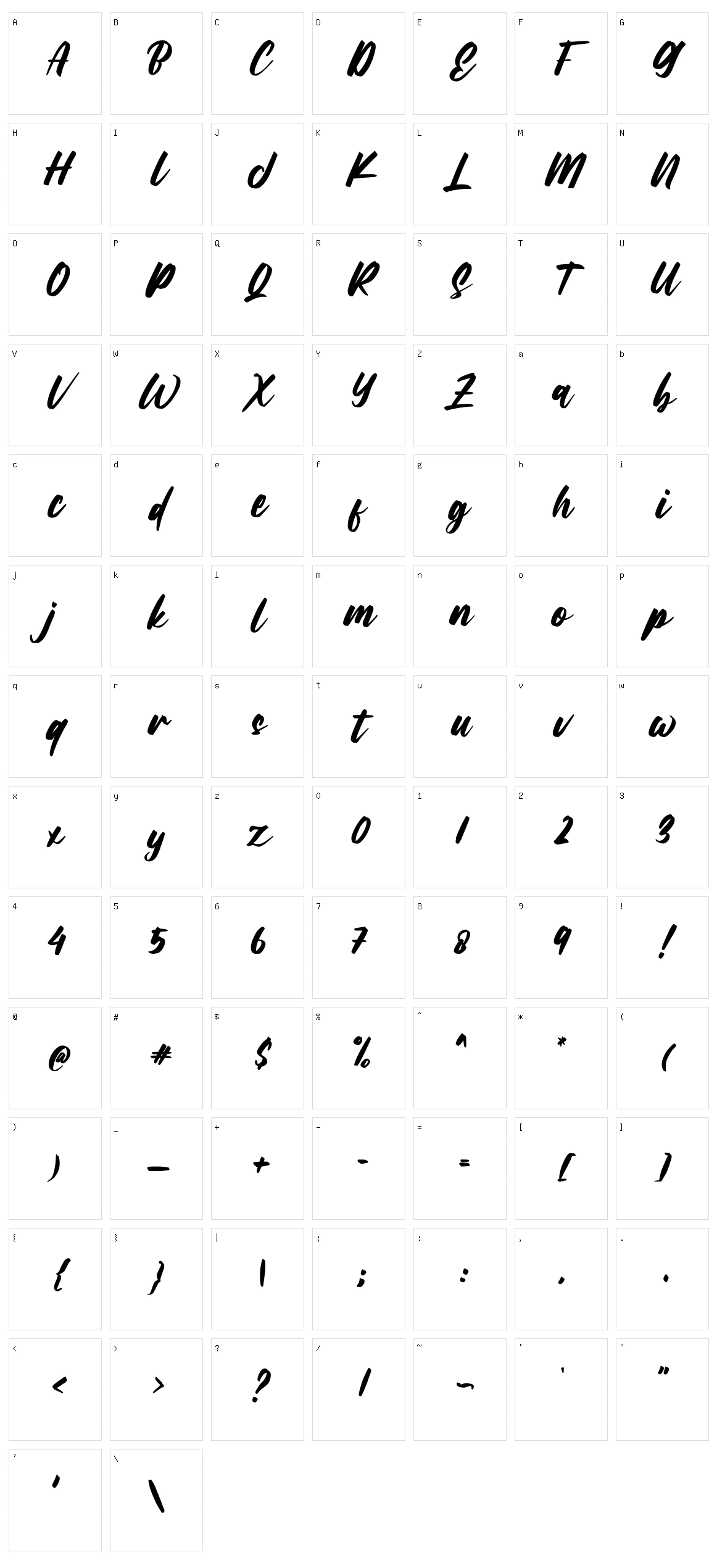
The free font Black History is carefully designed by FatmaStudio, showcasing a thoughtful balance of creativity and usability and falls under the Script font style. When you download the ZIP file, it contains only 40.92 KB of font files, making it lightweight and quick to download. Please review the license details below to understand permitted usage and distribution rights. If license information is not available, we recommend using this font for personal projects only or contacting the author directly for commercial usage permissions.